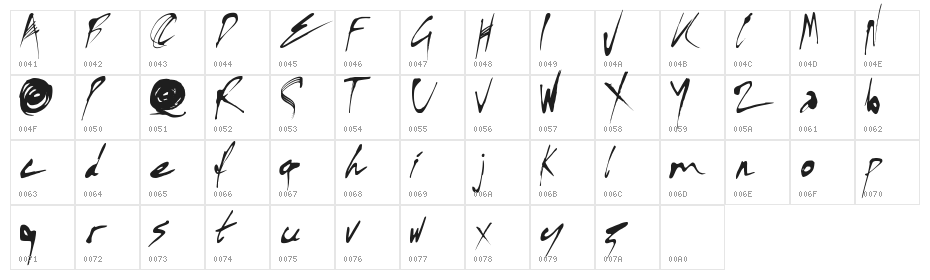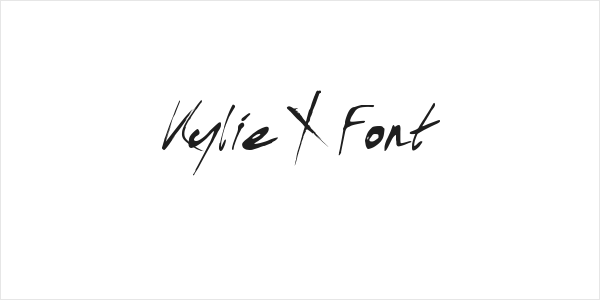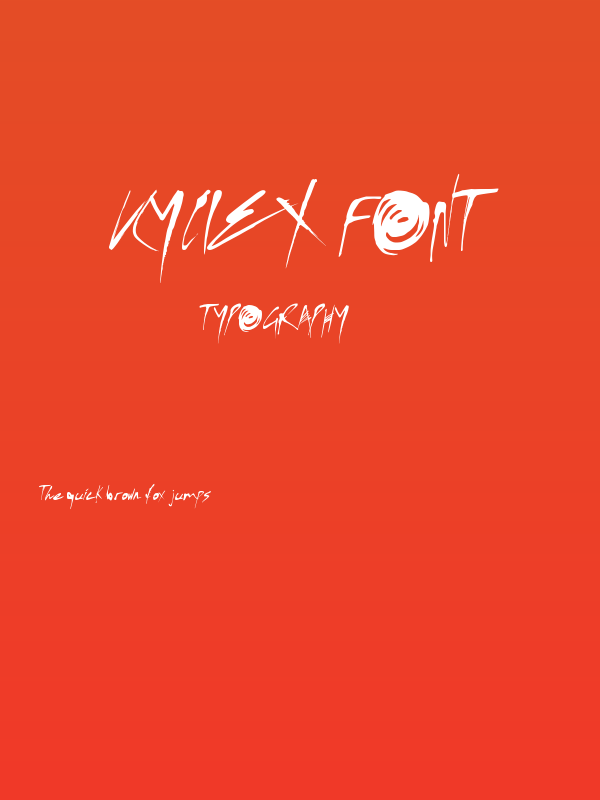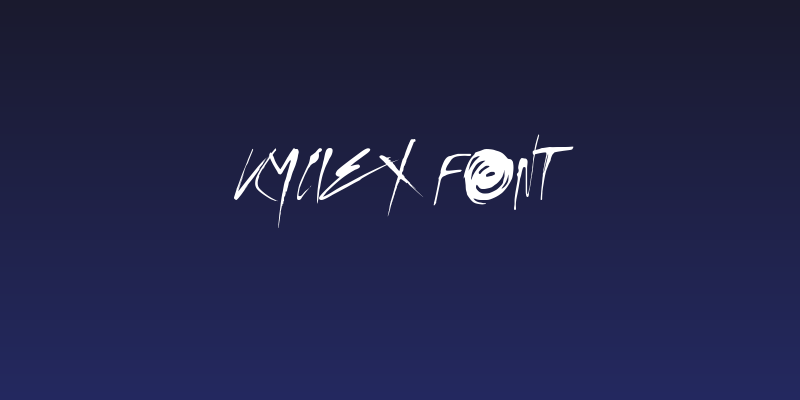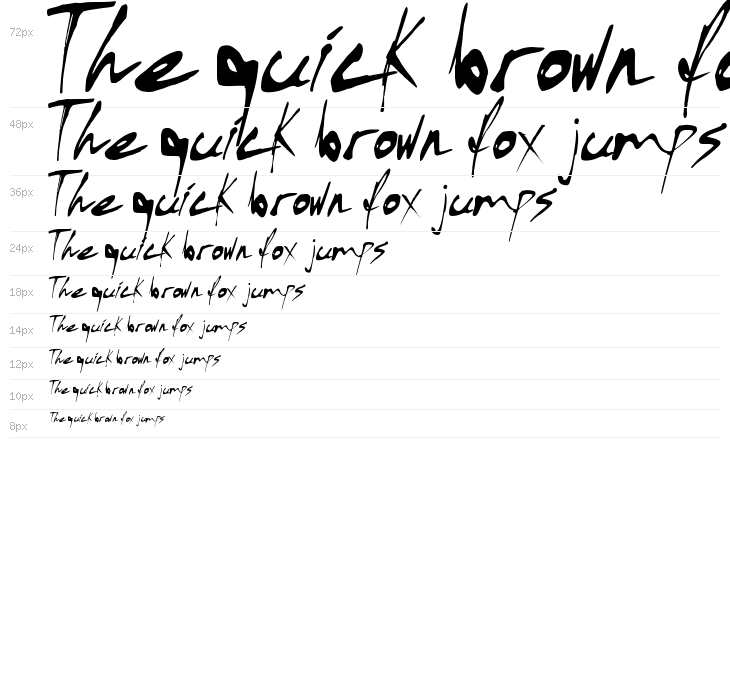
Kylie X Font Font
Kylie X Font Description
This font exhibits a dynamic and expressive handwritten style, characterized by its bold and energetic strokes. The uppercase letters are particularly striking, with some characters featuring swirling, almost chaotic elements that add a sense of movement and flair. The lowercase letters maintain this energy but with a slightly more restrained approach, offering a balance between readability and artistic expression. The numbers and special characters follow suit, integrating seamlessly into the overall design. This font is perfect for projects that require a bold, artistic touch, such as album covers, posters, or branding materials that aim to capture attention and convey a sense of creativity.
| Use Case | Headlines, Logos, Artistic projects |
| Proposed Projects | Ideal for album covers, posters, branding materials, and any project needing a creative, attention-grabbing font. |